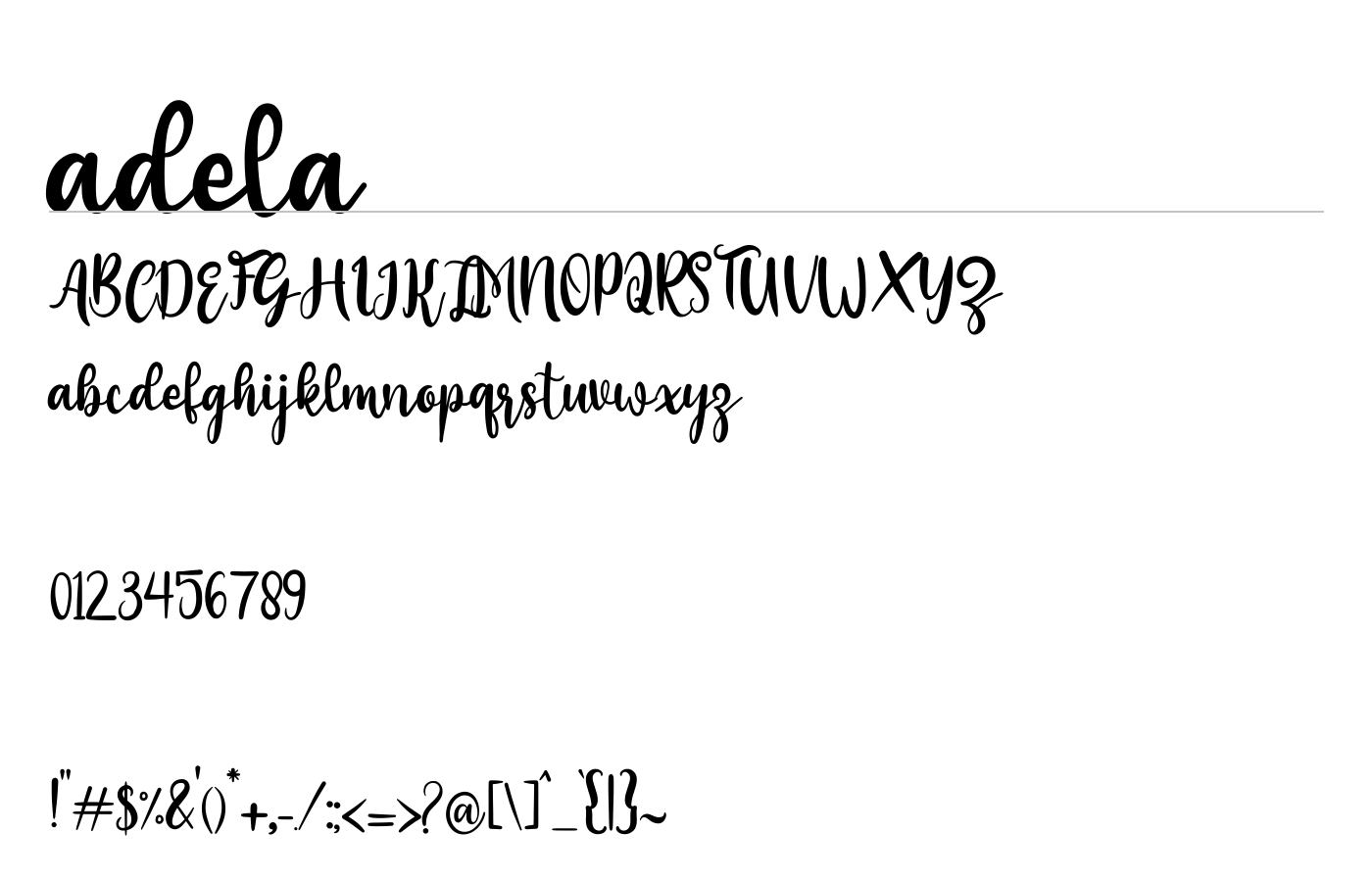
Adela is a playful and elegant script font with a lively, handwritten feel that features smooth, flowing strokes and distinct letterforms. Its light weight and tall, narrow proportions make it perfect for adding a whimsical yet stylish touch to invitations, logos, or creative headlines. This font works well in designs that seek to convey friendliness, creativity, and charm.
adela Font
About adela Font